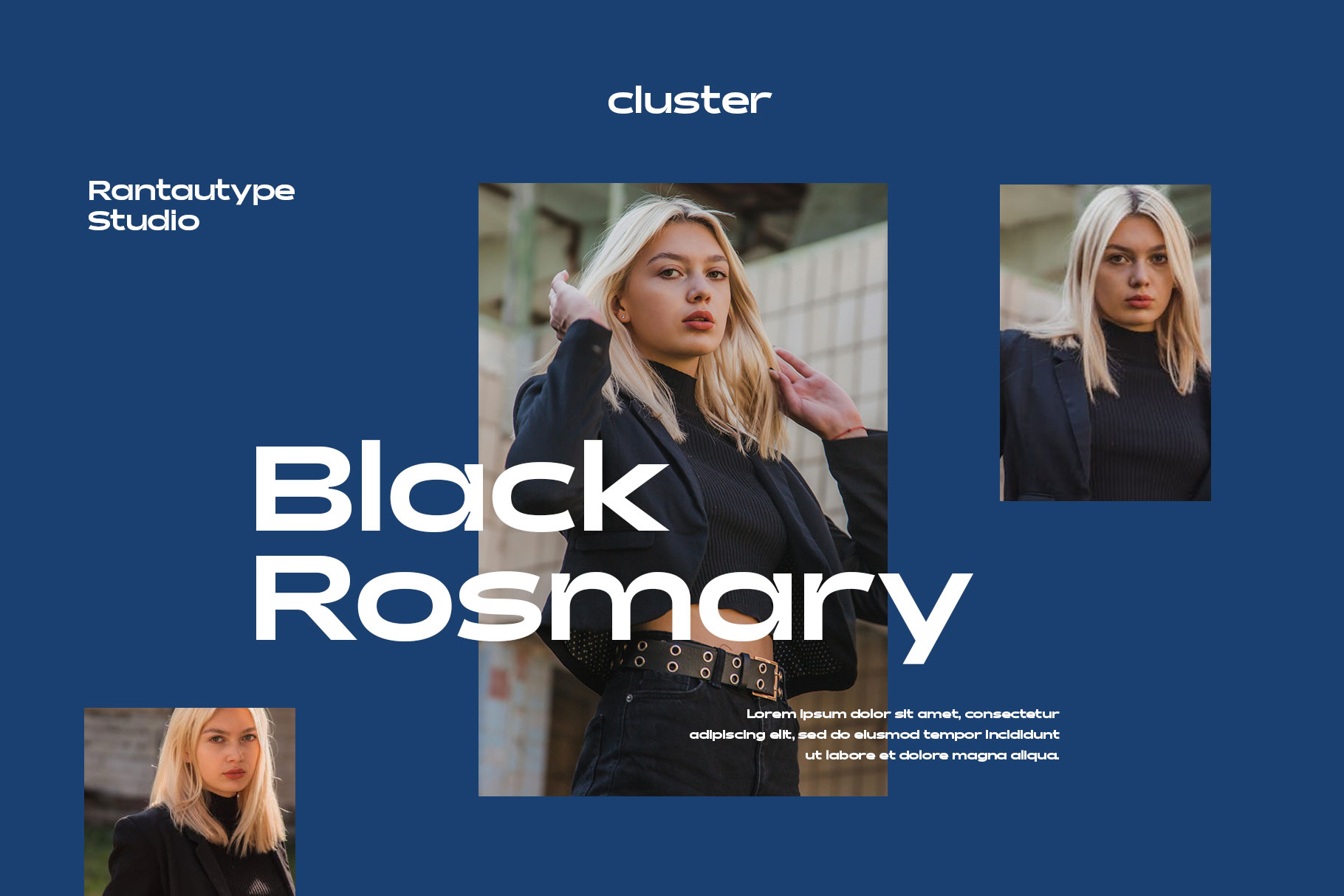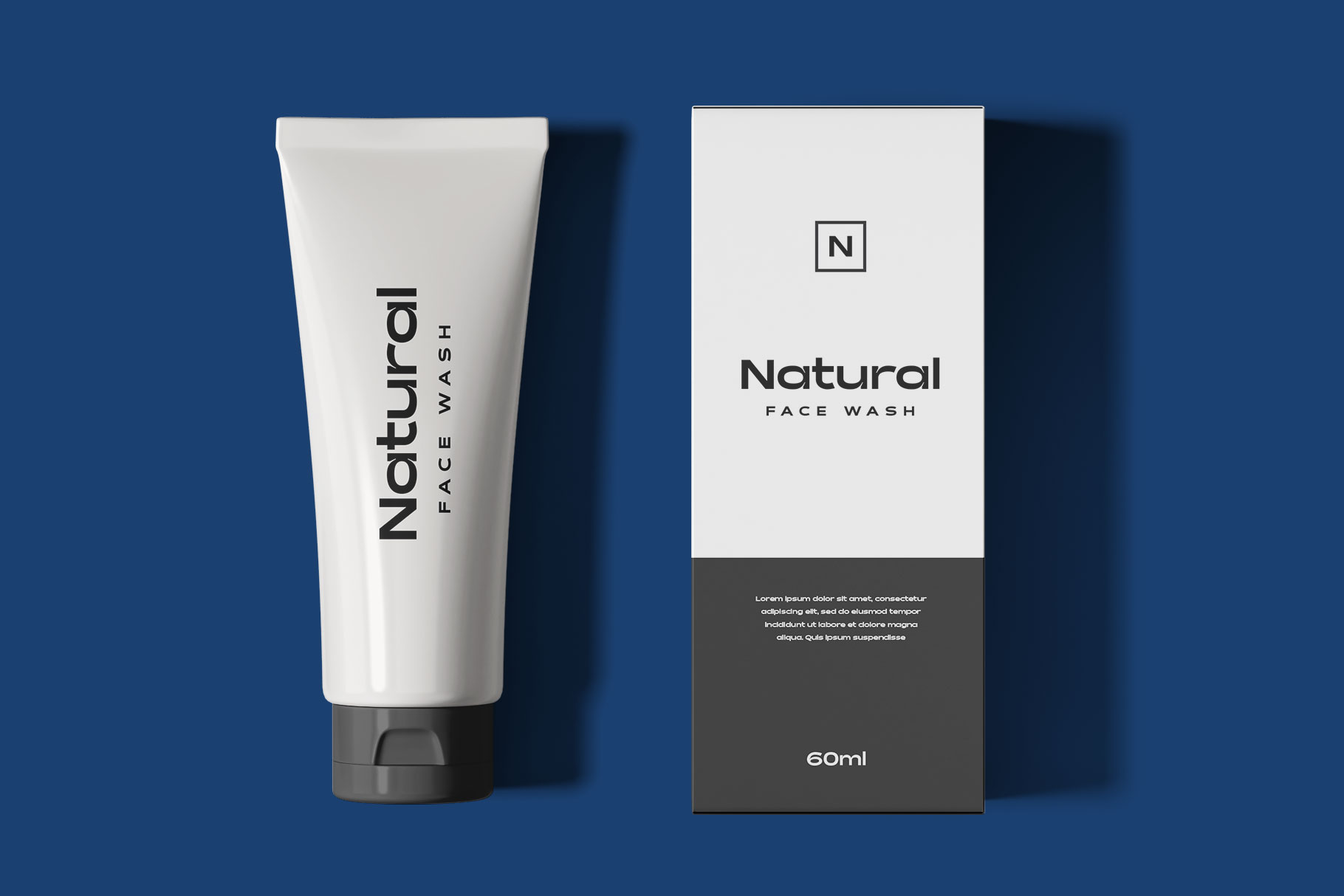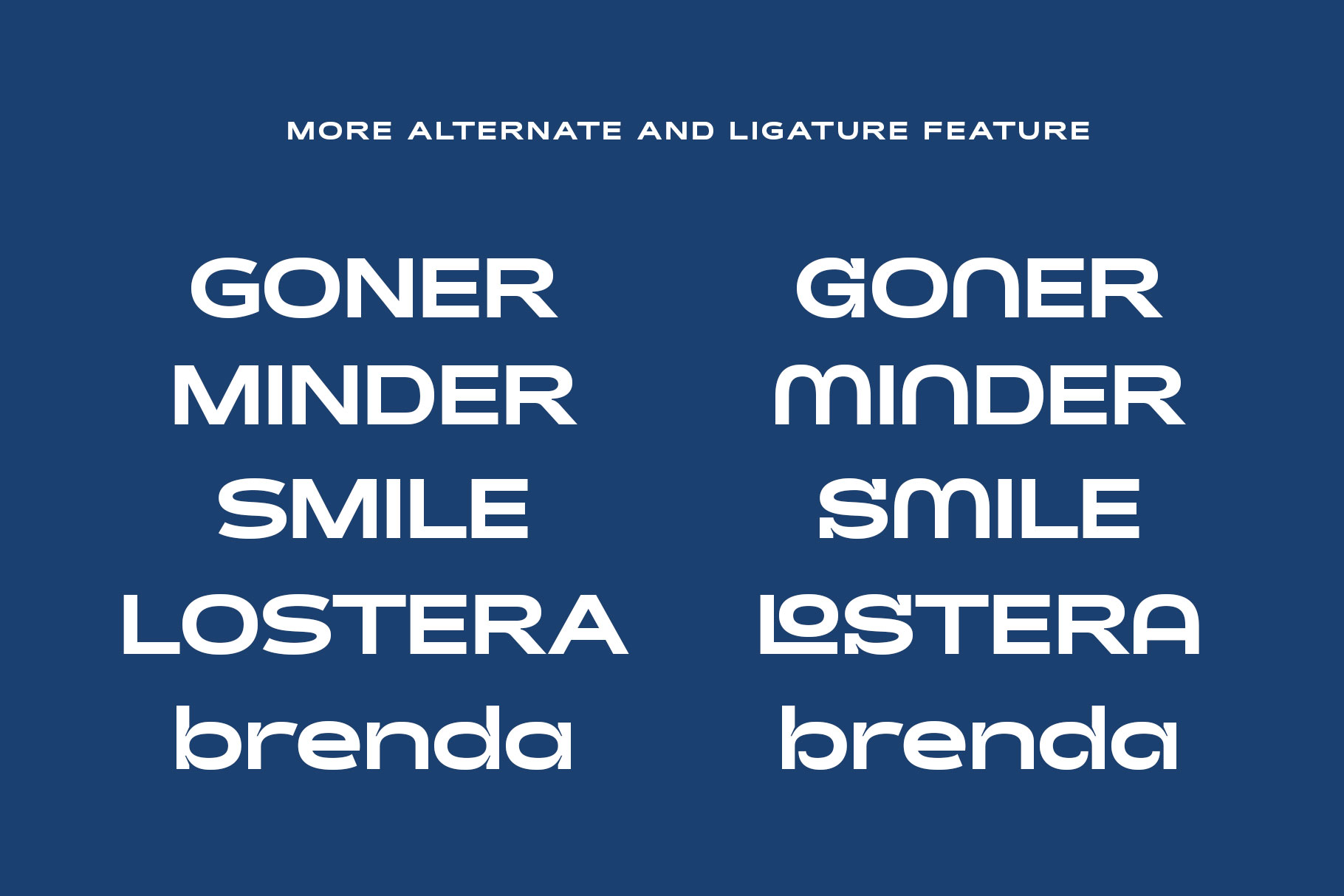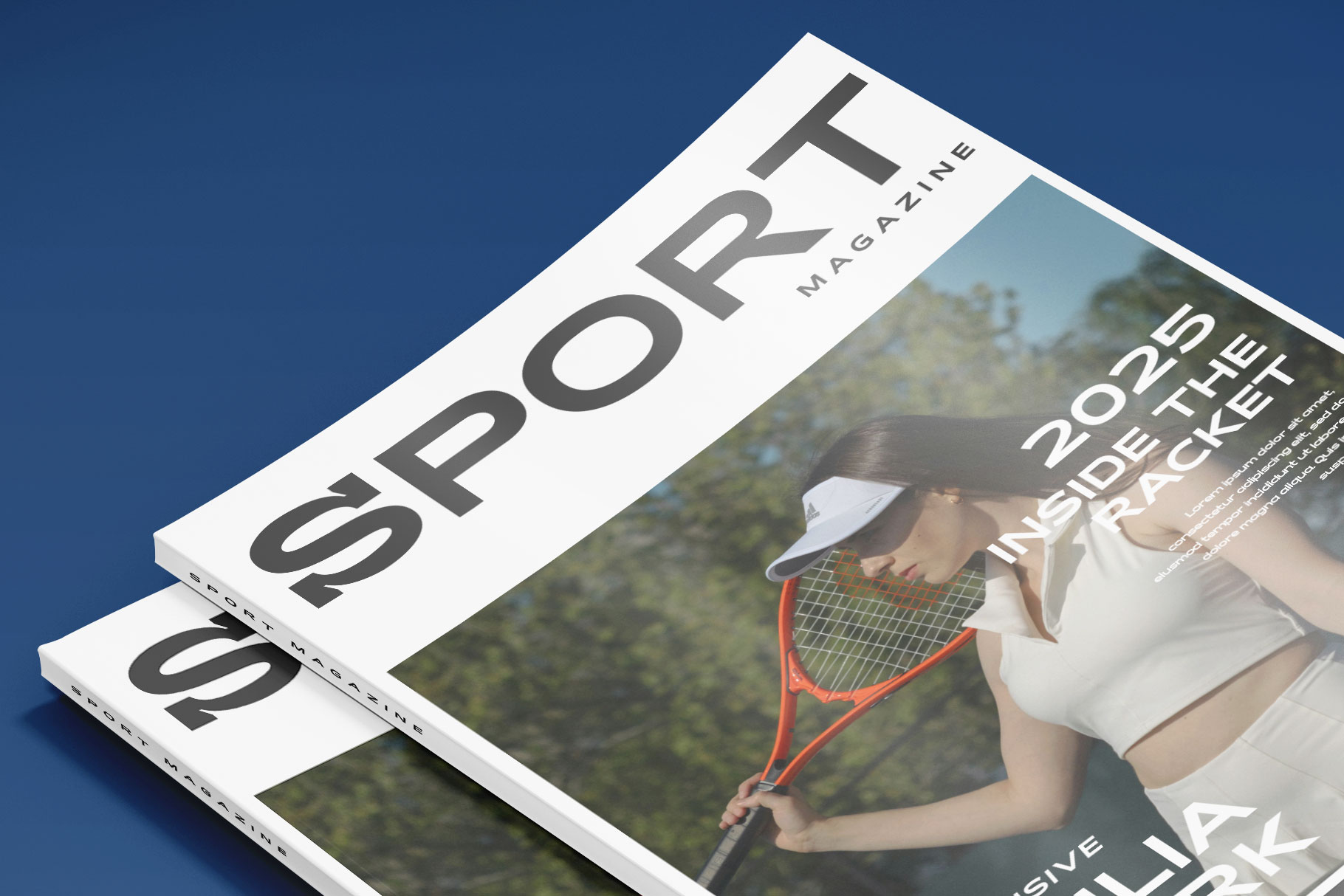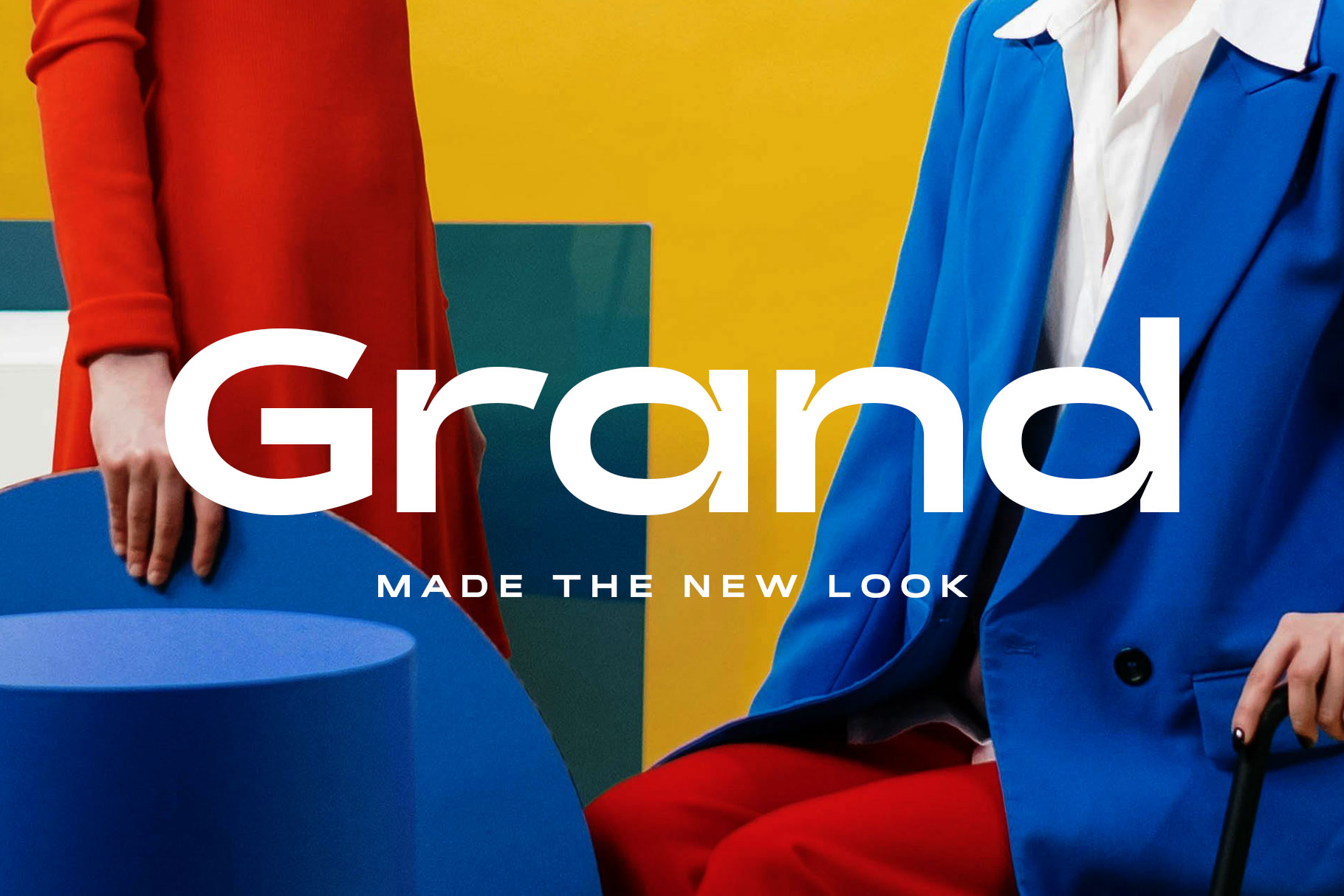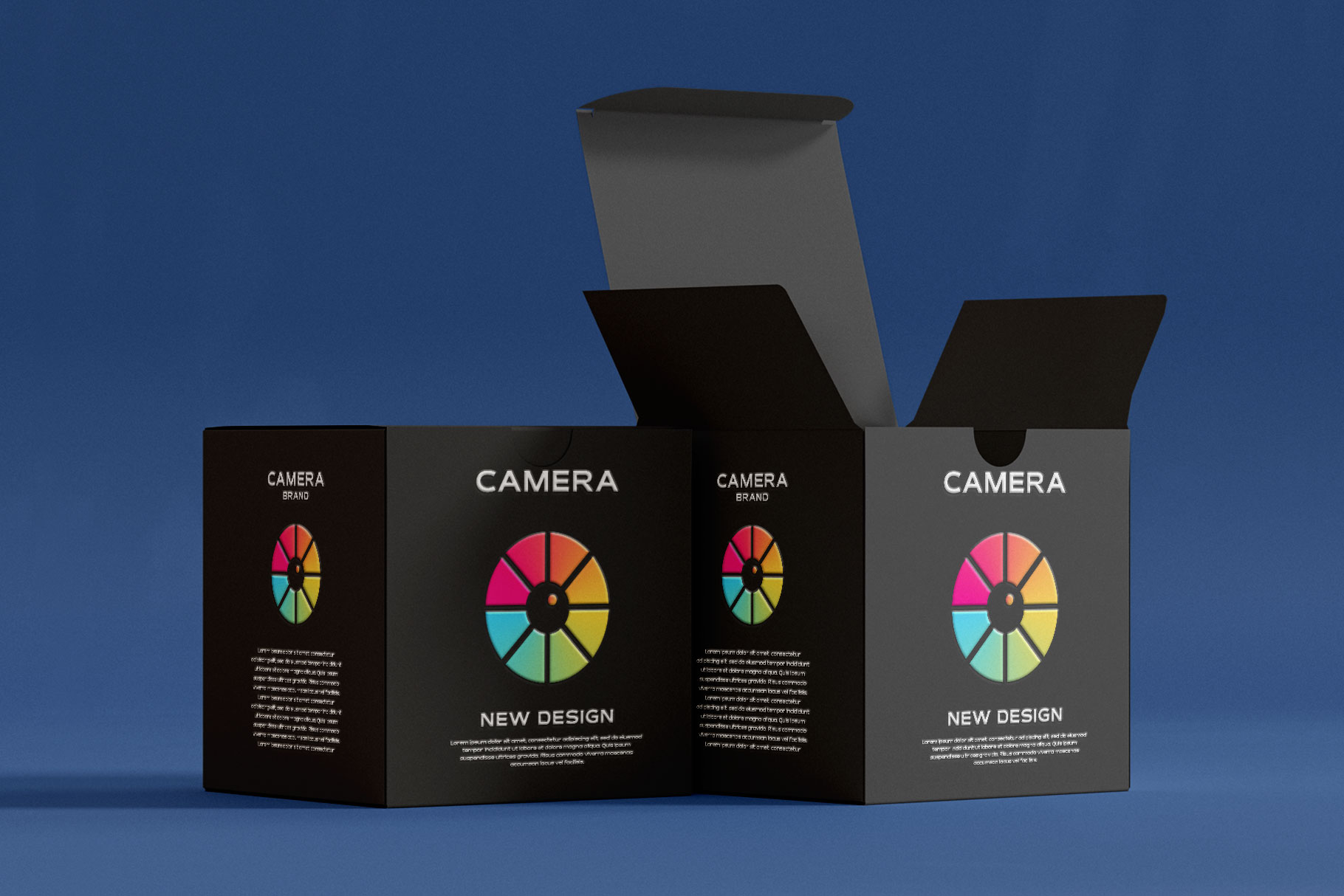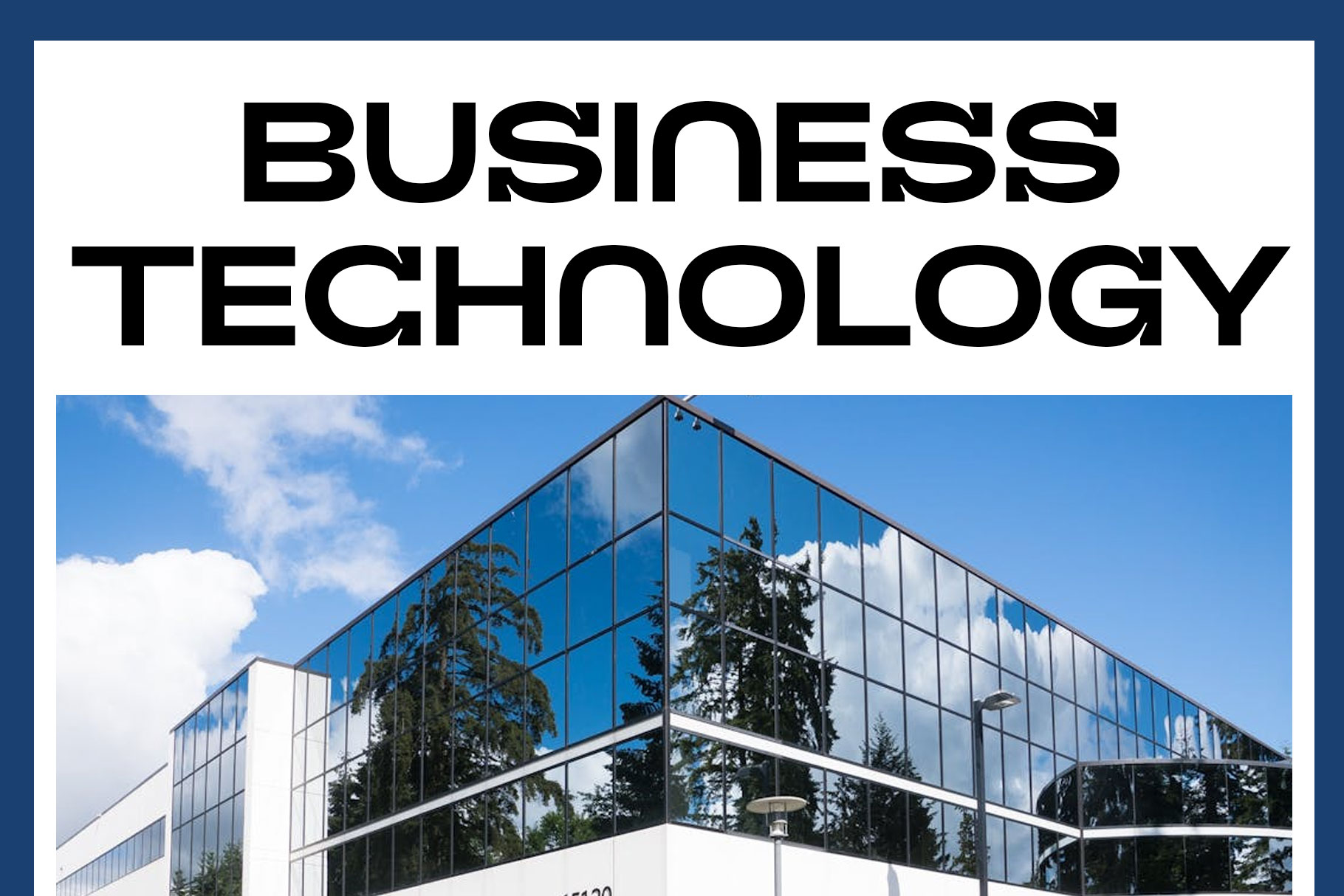
Sanery Modern Geometry Sans Font
Sanery is A modern geometry sans font is a typeface that reflects clarity, precision, and balance through its clean construction inspired shapes. The appeal of modern geometry sans fonts lies in their versatility.
Sanery is a perfectly choice for any creative endeavor, chic, lifestyle design such as logotype, advertisements, watermark on photography, stationery, branding project, display and magazine, invitation, corporate brand, product design, label, business project and many other project with modern touch.